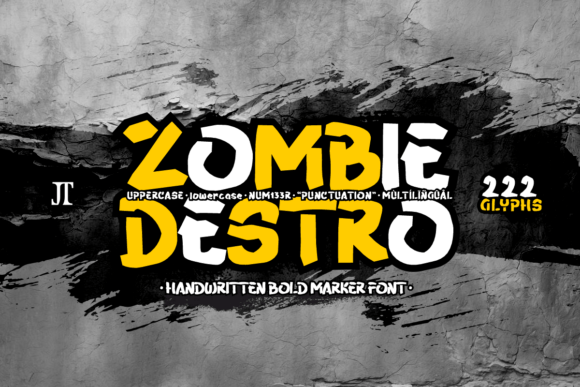
Zombie Destro Font: Unleash the Chaos in Your Designs
In the world of typography, few fonts manage to capture the essence of chaos and rebellion as effectively as Zombie Destro. This bold and chaotic display font is inspired by the darker corners of horror movies, comic titles, and apocalyptic themes, making it the perfect choice for designers looking to add an explosive energy to their work.
What Makes Zombie Destro Unique?
Zombie Destro stands out from other horror fonts due to its raw, hand-drawn texture and uneven strokes. Each letterform is meticulously crafted to convey a sense of destruction and rebellion, giving your designs a unique edge. The font’s rugged appearance and edgy details make it perfect for grabbing attention and setting a dark, thrilling mood.
- Raw Hand-Drawn Texture: Zombie Destro’s hand-drawn texture gives it an organic, imperfect feel that sets it apart from more polished fonts.
- Uneven Strokes: The font’s uneven strokes add to its chaotic, rebellious vibe, making it perfect for designs that require a bold statement.
- Edgy Details: Zombie Destro’s edgy details, inspired by horror movies and comic titles, add an extra layer of depth to your designs.
Perfect for a Variety of Design Projects
Zombie Destro is an incredibly versatile font, suitable for a wide range of design projects. Whether you’re working on a movie poster, album cover, streetwear design, gaming title, event flyer, or Halloween-themed artwork, this font is sure to make a statement.
- Movie Posters: Add a touch of horror and suspense to your movie posters with Zombie Destro’s bold, attention-grabbing letterforms.
- Album Covers: Give your music a bold, edgy sound with Zombie Destro’s unique typography.
- Streetwear Designs: Add a rebellious touch to your streetwear designs with Zombie Destro’s raw, hand-drawn texture.
- Gaming Titles: Create bold, eye-catching gaming titles that stand out from the crowd with Zombie Destro’s chaotic, explosive energy.
- Event Flyers: Make your event flyers stand out with Zombie Destro’s edgy, attention-grabbing typography.
- Halloween-Themed Artwork: Get into the spooky spirit with Zombie Destro’s horror-inspired letterforms, perfect for Halloween-themed artwork.
Benefits for Designers, Illustrators, and Creators
Zombie Destro offers a range of benefits for designers, illustrators, and creators looking to add a unique touch to their work.
- High-Quality Design: Each letterform is meticulously crafted to ensure a high-quality design that looks great in any context.
- Customizable: Zombie Destro’s raw, hand-drawn texture makes it easy to customize and adapt to your specific design needs.
- Unique Style: The font’s bold, chaotic appearance ensures that your designs stand out from the crowd and grab attention.
Tips and Tricks for Using Zombie Destro
To get the most out of Zombie Destro, here are some tips and tricks to keep in mind:
- Experiment with Colors: Zombie Destro looks great in bold, bright colors, so don’t be afraid to experiment and find the perfect hue for your design.
- Mix and Match: Combine Zombie Destro with other fonts to create a unique, eye-catching design.
- Play with Texture: Zombie Destro’s raw, hand-drawn texture makes it perfect for designs with a tactile, organic feel.
- Keep it Bold: Don’t be afraid to make a statement with Zombie Destro’s bold, attention-grabbing letterforms.
Unleash the Chaos with Zombie Destro Font
In conclusion, Zombie Destro is a bold and chaotic display font that’s perfect for designers, illustrators, and creators looking to add an explosive energy to their work. With its raw, hand-drawn texture and uneven strokes, this font combines rugged letterforms with edgy details to create a unique, attention-grabbing style. Whether you’re working on a movie poster, album cover, streetwear design, or Halloween-themed artwork, Zombie Destro is sure to make a statement.